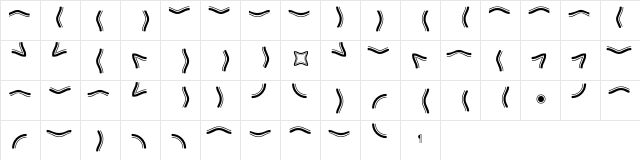
Borders Scotch Waves Font Preview
Borders Scotch Waves
Borders Scotch Waves Font Details
| Style | Scotch Waves |
Design Context for Borders Typeface
Borders takes a measured approach to typography — its balanced proportions and neutral character make it a reliable workhorse for both digital and print work.